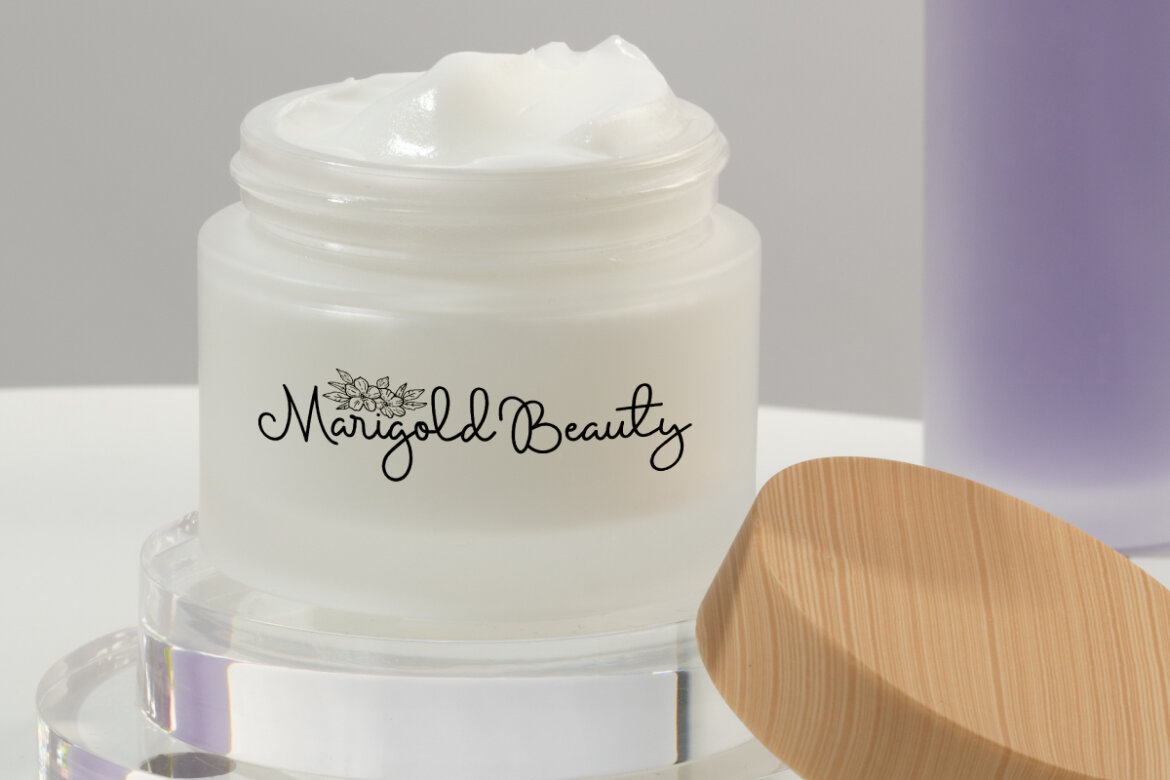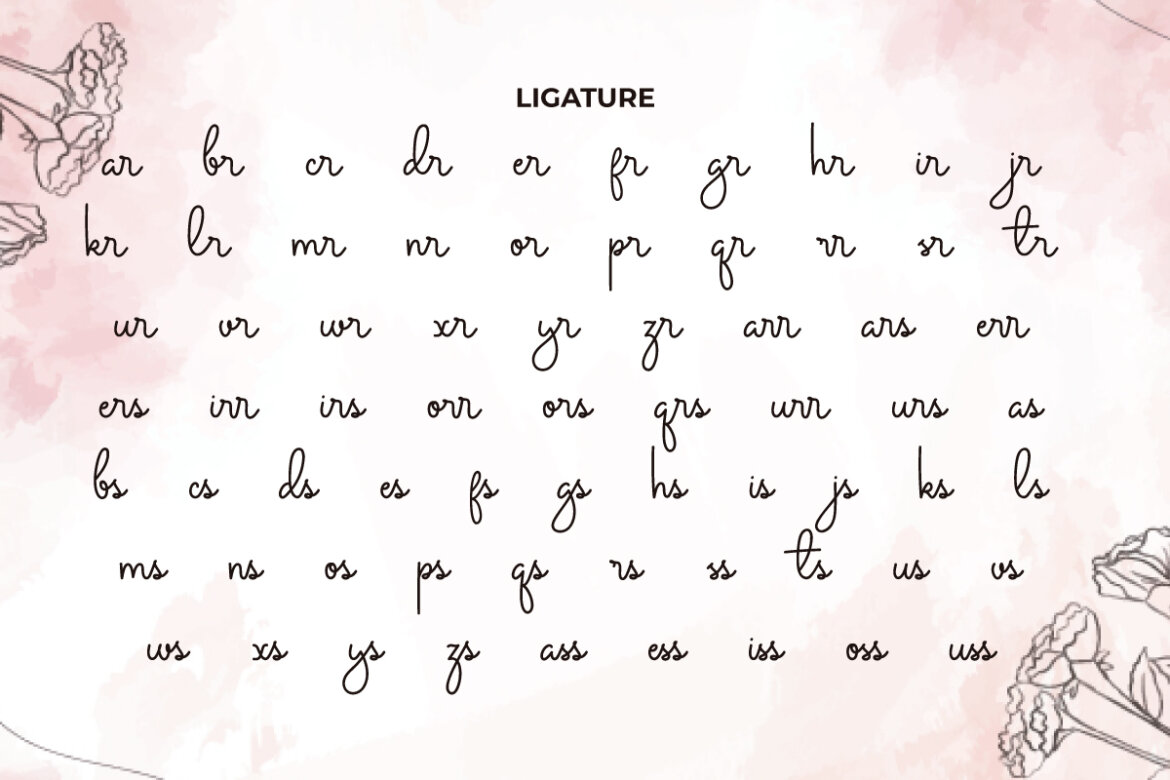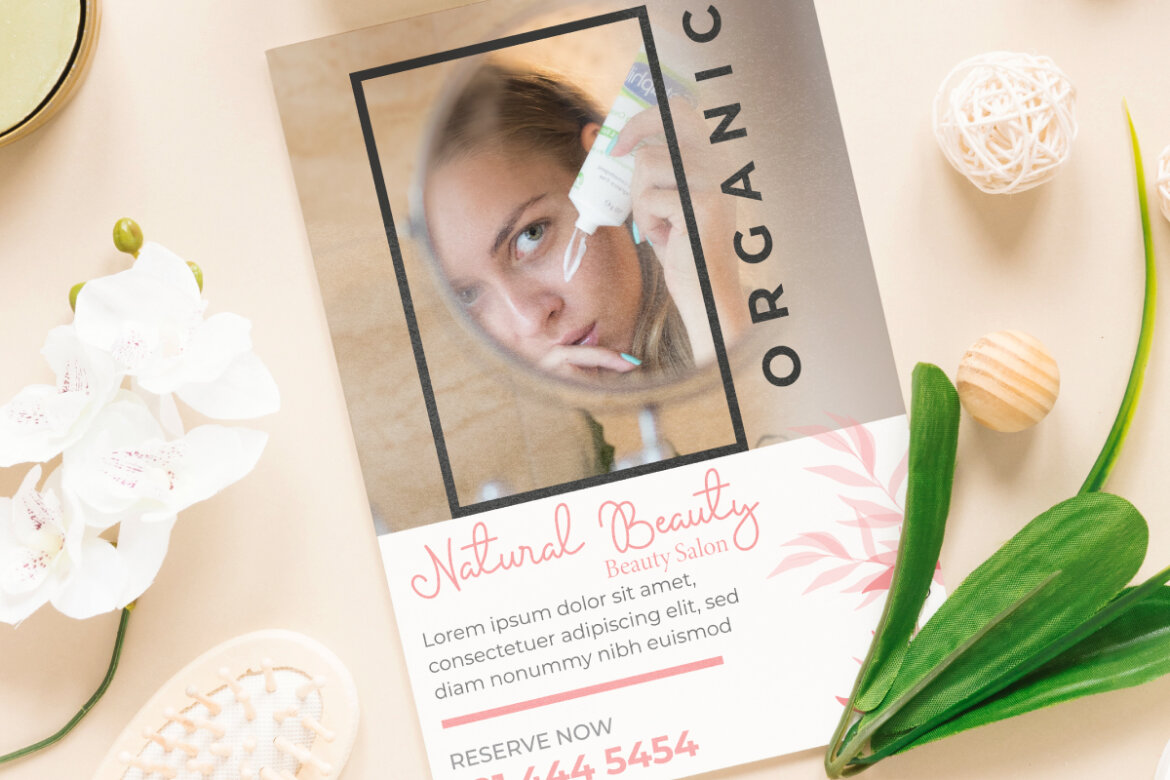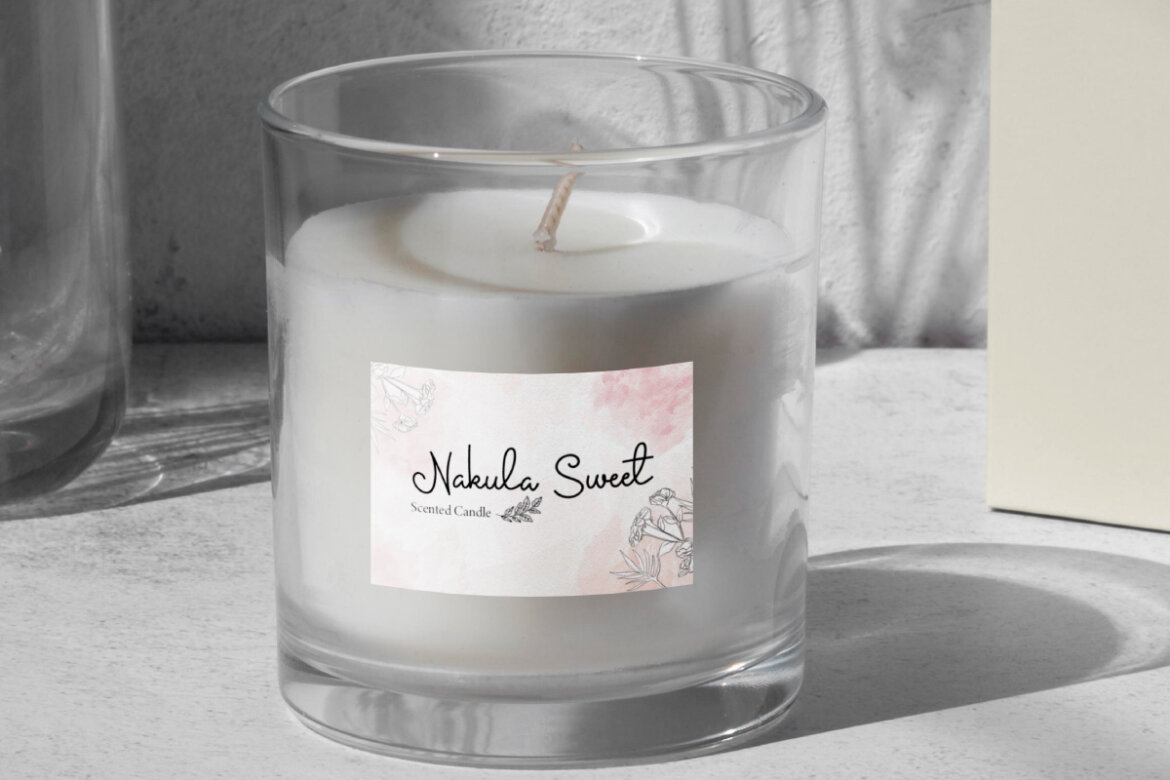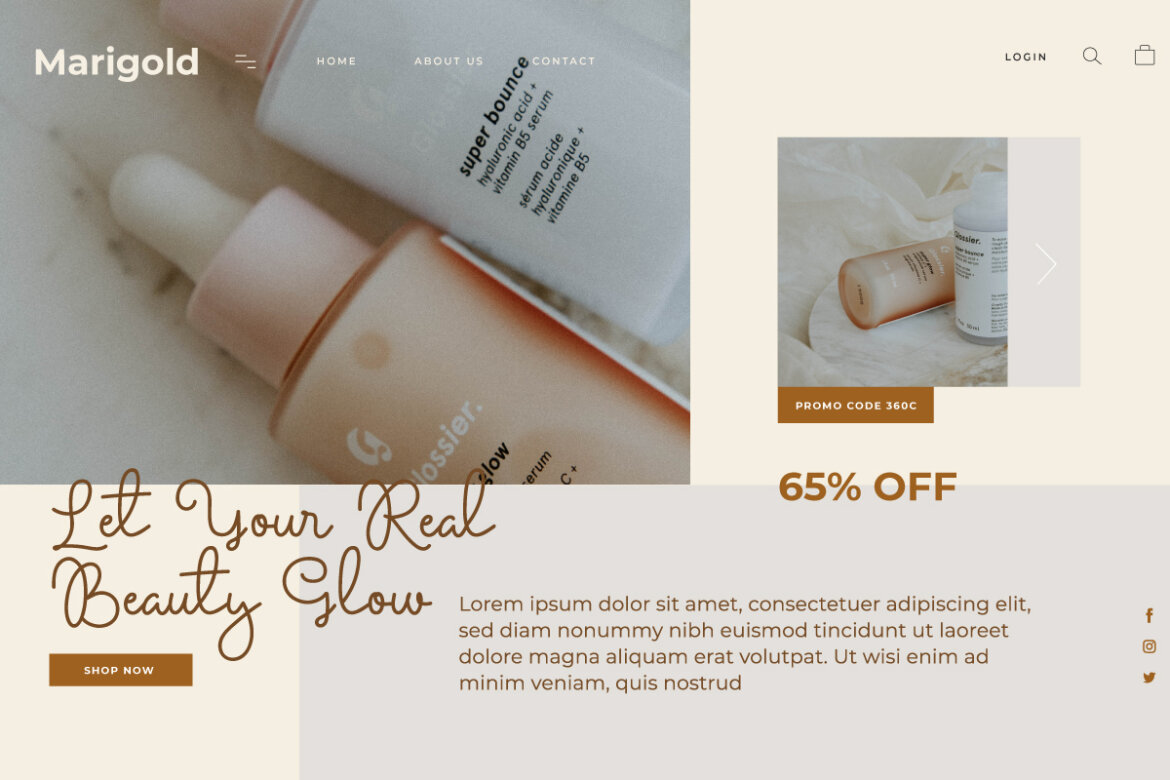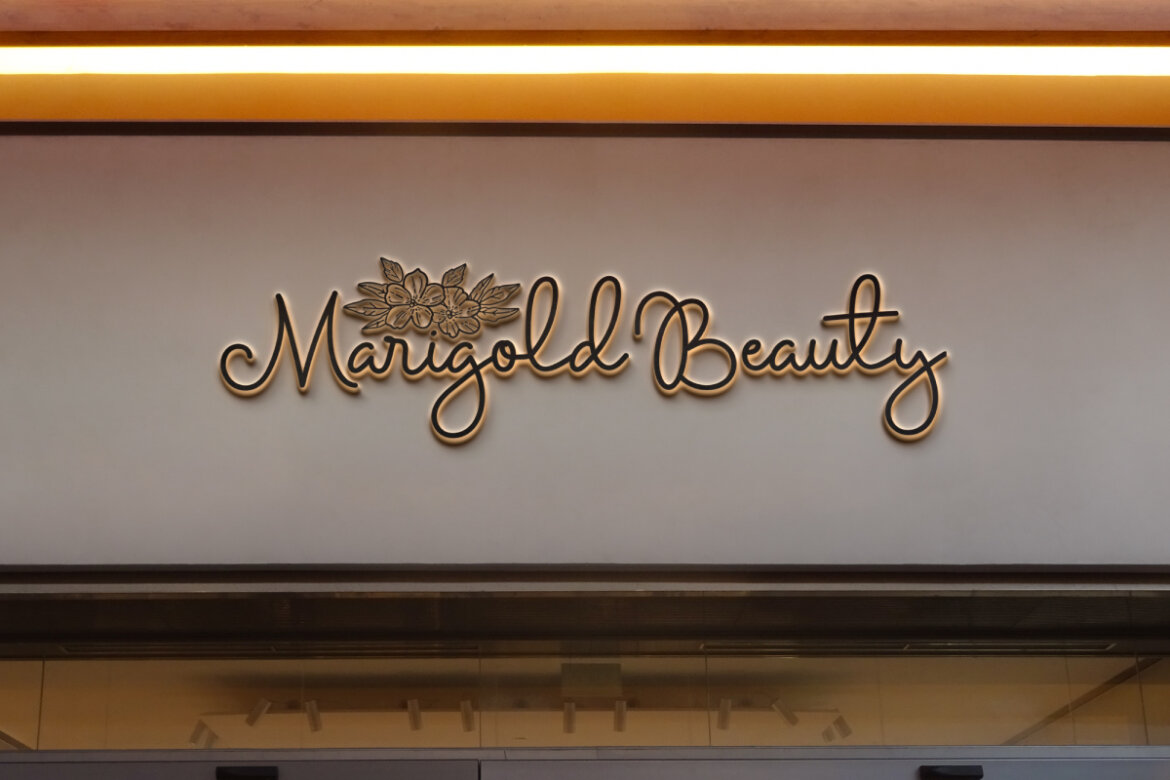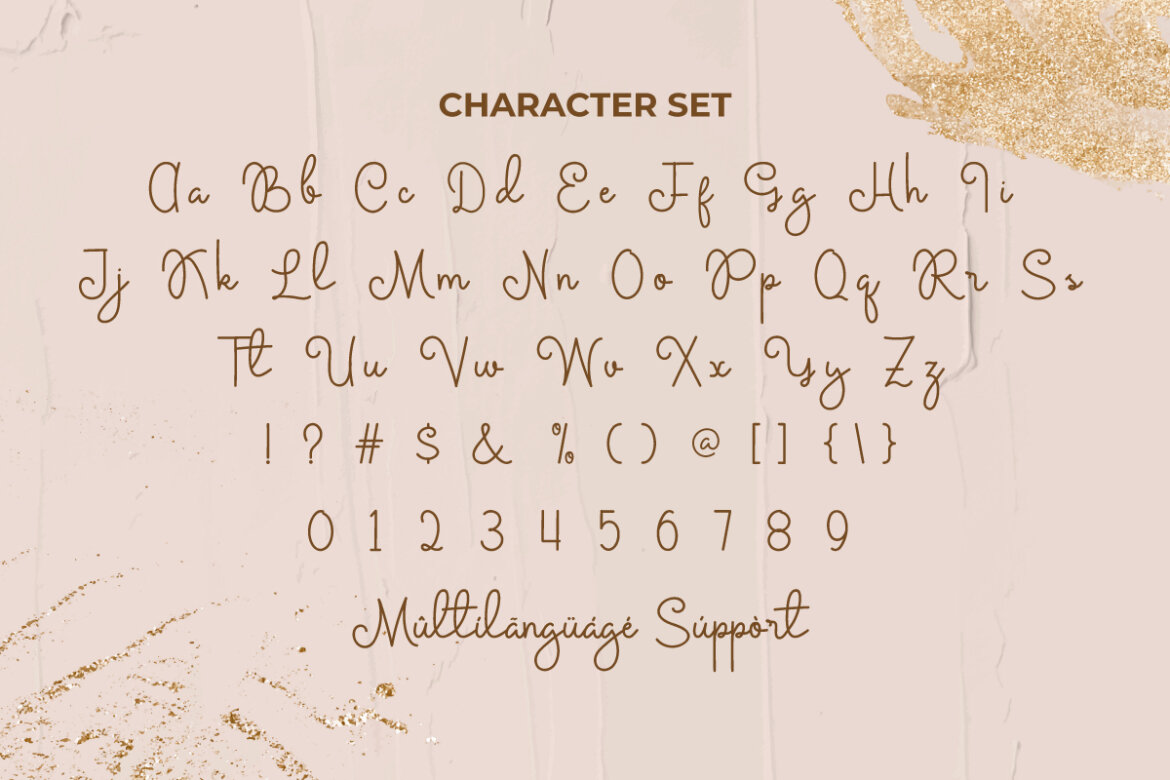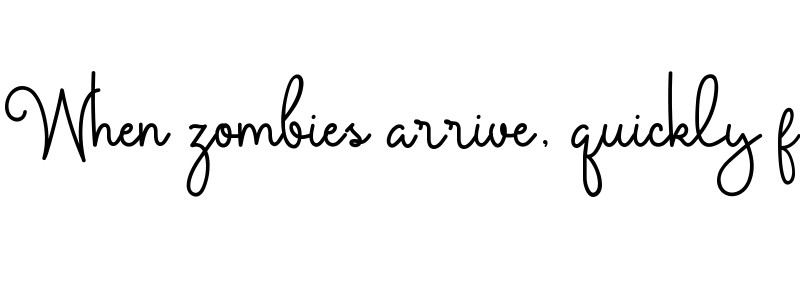
Madelyn Bright FREE Font
Madelyn Bright
Madelyn Bright Font is a charming curly light handwriting script font with a natural monoline pen style. This font is great for your next creative project such as blogs, brand logo, brochure, business cards, cards design, labels, product packaging, quotes, signage, stationery, sticker, title, watermarks, and many other design projects.
Madelyn Bright Font is flawlessly crafted to give a minimalist font appearance that is captivating at first glance. It seems ideal if combined with other font types. This stunning handcrafted font will be perfect for beauty clinic, cosmetic, graphic design, handicraft, photography, printing, publishing, skincare, spa salon, wedding, and other needs.
Madelyn Bright Font comes with a complete set of Uppercase and Lowercase Basic Characters, Number, a large range of Punctuation, Symbol, and Ligatures. It has included multilingual character support ready to be used on Windows or Mac machines with a simple installation. It’s tested to work well in the Adobe Apps (Illustrator, Adobe InDesign, Adobe Photoshop) CorelDraw, and others. PUA Encode Characters means you can access all the characters easily – Fully accessible without additional design software.